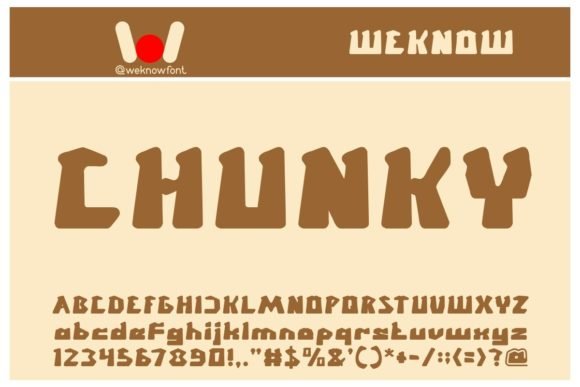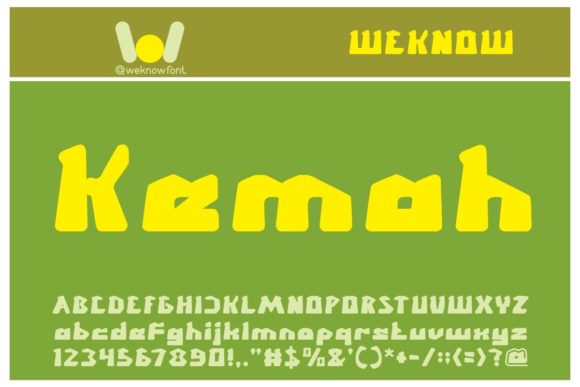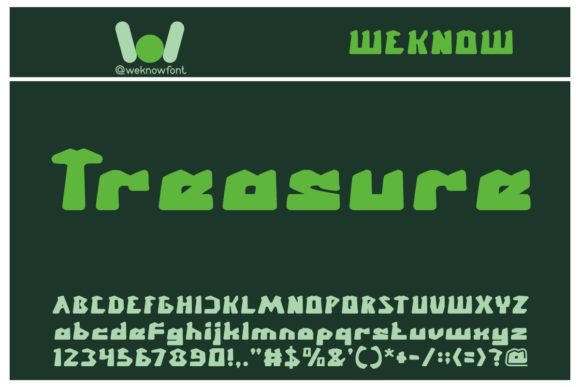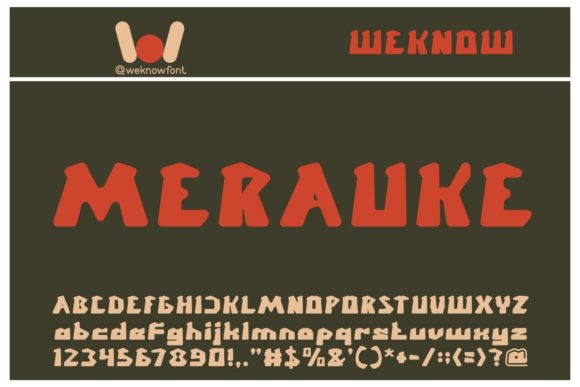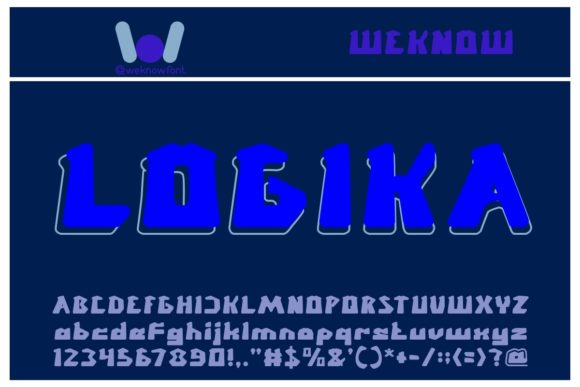
Unlocking Creativity with Chunky Font
Have you ever been in the midst of brainstorming, trying to bring a project to life, and suddenly, you’re stuck? You know, that moment when everything seems to be falling into place, but you just need that one final spark to make it truly special? That’s when the right font can make all the difference. For me, it’s always been about finding the perfect combination of style and substance to elevate my ideas.
That’s where Chunky Font comes in – a striking display font that adds a modern, chunky touch to any design. Its uniquely shaped characters are sure to catch the eye and make your creations stand out from the crowd. As a designer, I can attest to the value of having a versatile font like Chunky at my disposal. It’s a game-changer for anyone looking to add some visual interest to their work.
Chunky Font Key Features
- Font Family: Chunky Font is a sans-serif font family designed to be bold and eye-catching. It comes in multiple weights, from light to heavy.
- Font Sizes: Chunky Font is available in sizes ranging from 8 points to 72 points, making it suitable for use in various contexts, from small text to large headlines.
- Resolution: Chunky Font is designed to be resolution-independent, meaning it will look crisp and clear at various resolutions, from low to high DPI (dots per inch).
- Unique Characteristics: Chunky Font is known for its bold, chunky appearance, making it perfect for use in headings, titles, and other areas where emphasis is needed.
Designer Review: Chunky Font
Chunky Font is a playful, eye-catching font that’s sure to grab attention. ✨ I love how it adds a touch of whimsy to any design project, making it perfect for creative and informal applications.
- ✨ Great for headings and titles, as it adds a sense of excitement and energy
- ✨ Works well for branding and logos, especially for companies that want to stand out in a crowded market
- ✨ Can be used to add visual interest to social media graphics, posters, and flyers
However, there are some limitations to consider. ⚠️ Chunky Font can be overwhelming if used excessively, so it’s essential to use it sparingly to avoid visual fatigue.
- ⚠️ May not be suitable for formal or professional applications, such as business reports or academic papers
- ⚠️ Can be challenging to read in small sizes or when used in large blocks of text
Overall, Chunky Font is a fun and versatile font that can add a lot of personality to your designs. While it may have some limitations, it’s a great choice for creative projects and applications where a playful touch is needed.
Getting the Most Out of Chunky Font
For best results, use Chunky Font in bold or italic styles to add emphasis to your text. You can also use it in combination with other fonts to create a visually appealing contrast.
Chunky Font is commonly used in:
- Emphasis and highlighting text
- Designing social media graphics